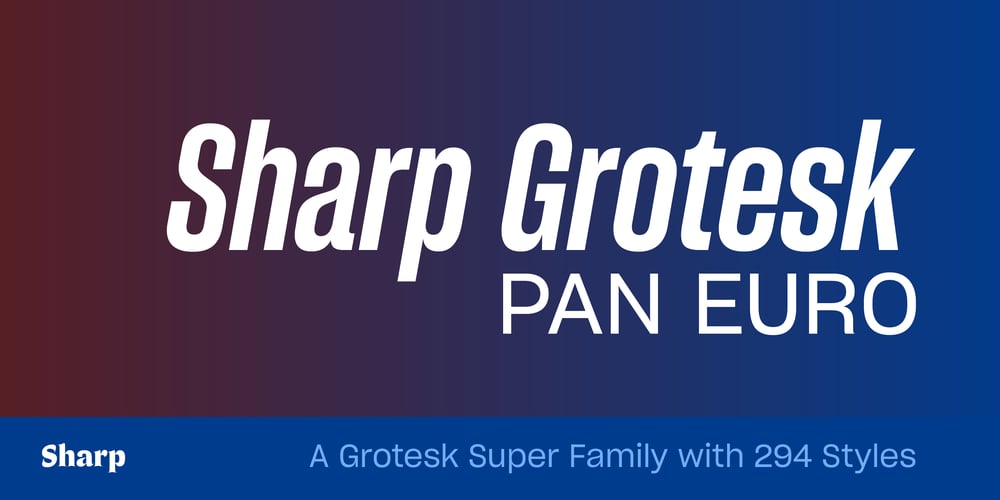
Sharp Grotesk Paneuropean Font Family was designed by Lucas Sharp, Octavio Pardo, Kostas Bartsokas, Greg Gazdowicz, Connor Davenport, Kia Tasbihgou, Wei Huang, Chantra Malee, Maria Doreuli, Jovana Jocic and published by Monotype. Sharp Grotesk Paneuropean contains 294 styles and family package options. Sharp Grotesk Global is Sharp Type’s largest superfamily to date. It’s our most comprehensive Latin typeface, with twelve weights and seven widths in Roman and Italic styles. Sharp Grotesk now also represents our first multi-script release, with extensions in Greek, Cyrillic, Hangul, and Thai. Finally, a Latin variable font rounds out the collection. What began as a hand-drawn lettering poster in 2011 is arguably our most versatile typeface, endlessly adaptable and scalable. It’s the culmination of years of work, and it’s a prelude for what’s to come at Sharp Type.